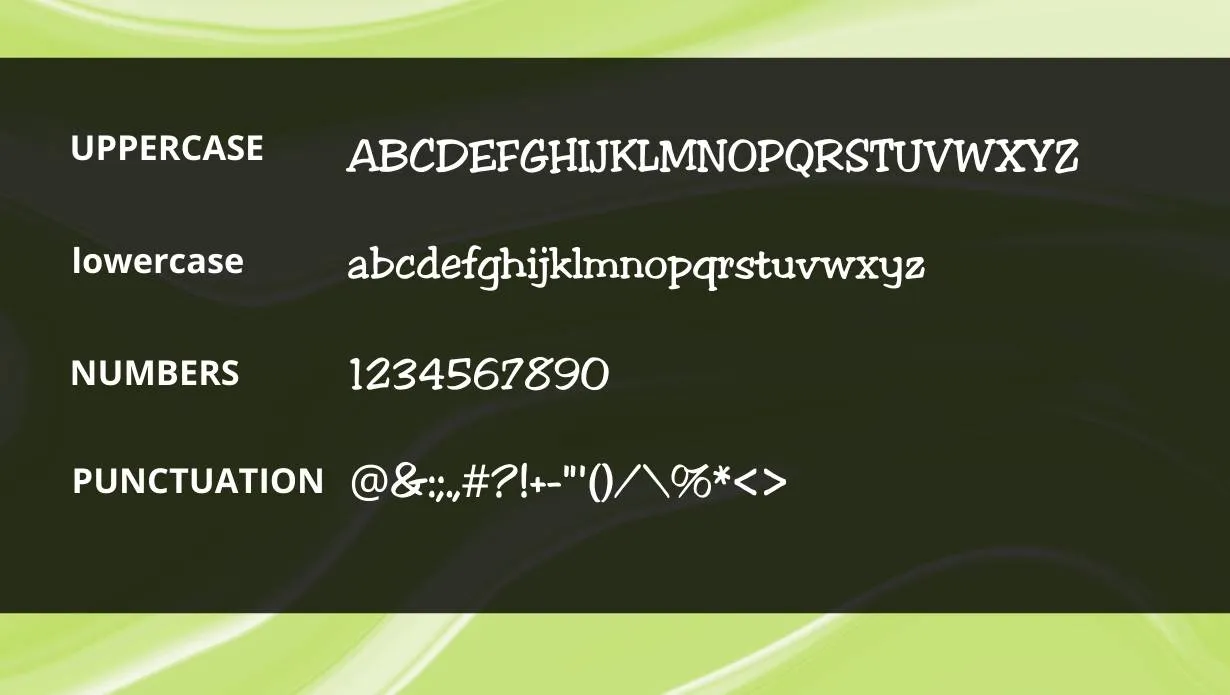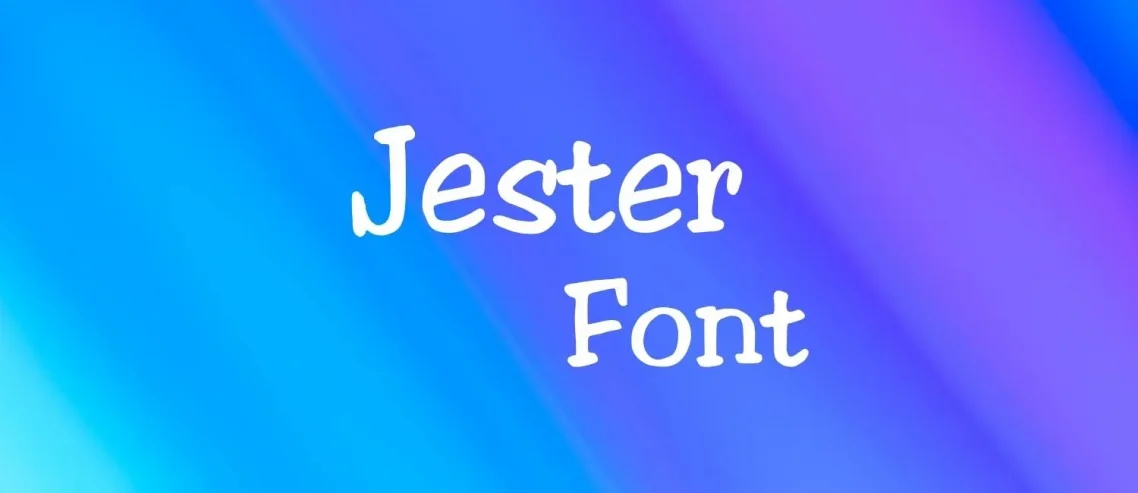
Jester Font is a typeface that was designed by Dick Pape in 1965. It is considered to be a display face and is best used for headings, titles, and short blocks of text.
Pape was an American typeface designer who is best known for his work on the Helvetica typeface. This font style was inspired by the work of Dutch typeface designer Jan van Krimpen.
| Designer | Dick Pape |